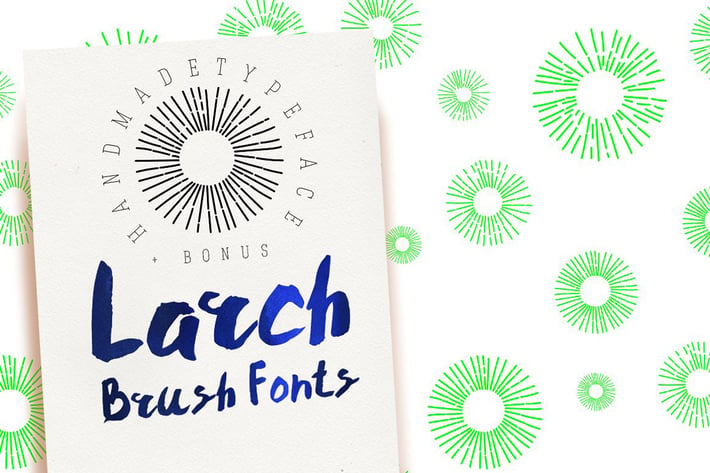
Larch Brush Font
This bright bold font was created with a special brush on paper, scanned and finalized on computer.
This is 100% handmade. You can use it for posters, advertising, business cards, wedding invitations, T-shirts. It goes well with watercolor, so I put two watercolor files of good quality in archive. Also it goes well with splashes, stains and all natural effect. I see that it is good to use with thin lines, like the one that I used in the examples. These patterns and graphic elements are included in a package. Thank you for your sympathy and shopping!
LARCH handmade typeface